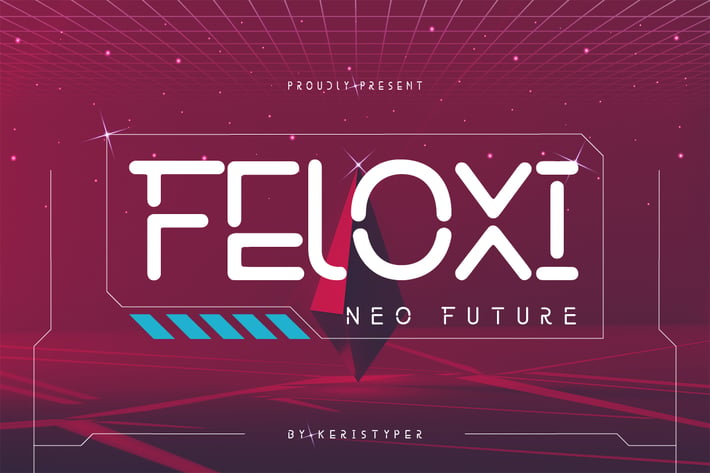
Feloxi Font
Feloxi is a crafted neon-inspired font giving us the creativity to replicate traditionally hand-made lettering from the imagination of their computer. This font is good for logo design, Social media, Movie Titles, Books Titles, short text even long text letters, and good for your secondary text font with sans or serif.